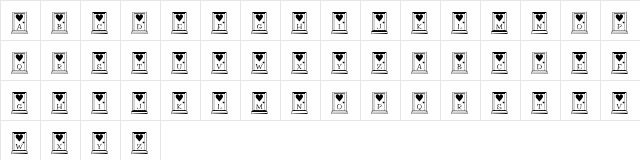
KR Home Is Where The Heart Is Regular
Design Context for KR Home Is Where The Heart Is Typeface
KR Home Is Where The Heart Is is a composed and adaptable typeface that performs quietly and consistently across a wide range of design contexts.